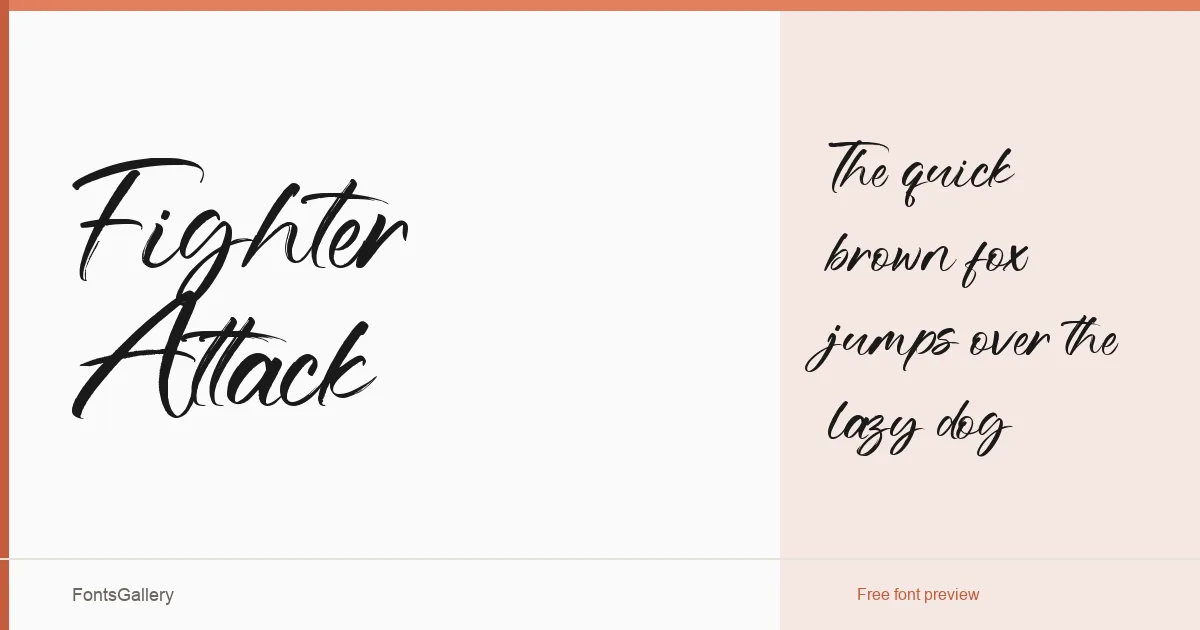
About Fighter Attack Font
Fighter Attack is a bold, handwritten typeface created by Letterara that channels a raw, vintage energy with a distinctly rugged character. Its grunge-infused aesthetic makes it a striking choice for projects that demand personality and visual impact. The font's rustic boldness gives it an authentically worn, hand-crafted feel that stands out in a crowd.
Fighter Attack's letterforms are built on bold, expressive strokes that reflect a handwritten origin with a heavy grunge influence. The vintage and rustic qualities come through in its slightly irregular, textured character shapes, giving each letter a lived-in, battle-tested appearance. This combination of boldness and gritty charm creates a typeface that feels both powerful and authentically hand-crafted.
Fighter Attack excels in high-impact visual contexts such as logos, posters, branding projects, social media graphics, and t-shirt designs where a bold, vintage-rugged statement is needed. It works best in display sizes where its expressive character can take center stage. For a compelling typographic pairing, consider combining Fighter Attack with Aresink for a cohesive rugged feel, or with Helvetica for a striking contrast between gritty handwritten style and clean modern sans-serif.